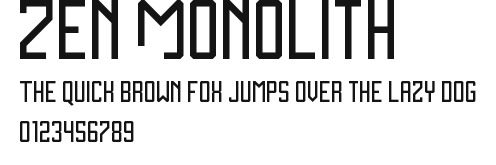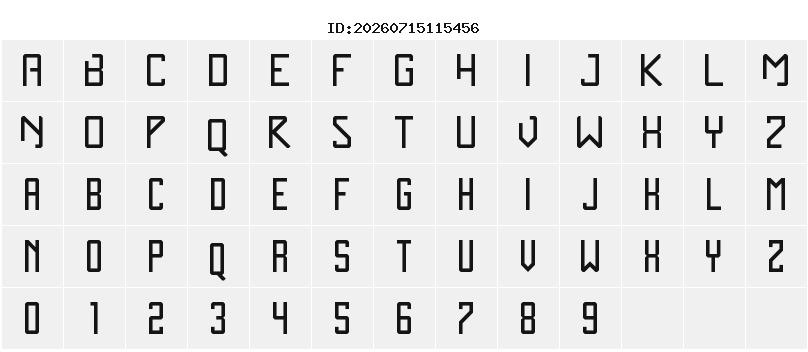
• Font Name: Zen Monolith
• Font ID: FontStruct Zen Monolith
• Full Font Name: Zen Monolith Regular
• Designer: NAL
• Description: “Zen Monolith” was built with FontStruct
About Zen Monolith.ttf
Zen Monolith.ttf is a modern, elegant sans-serif font designed for ultimate readability and visual harmony. Perfect for branding, headlines, web design, and print materials.